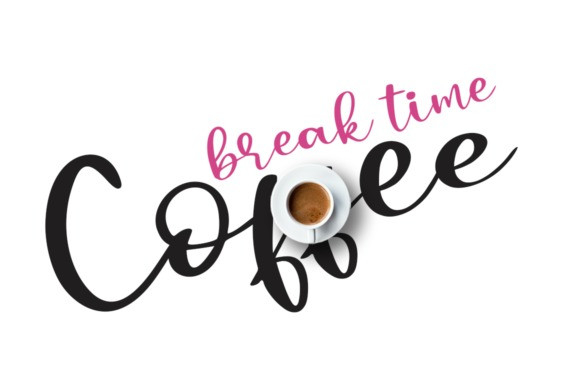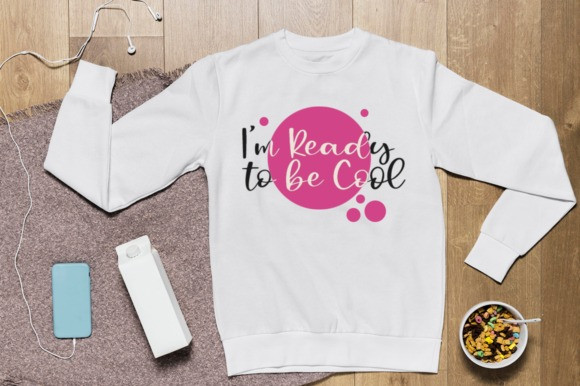
Mister Butter Script Font
Mister Butter is a lovely and timeless handwritten font. It has beautiful and well balanced characters and as a result, it matches a wide pool of designs. It is the best choice for creating eye catching logos, branding and quotes. Every letter has a unique and beautiful touch, which will make your design come alive!